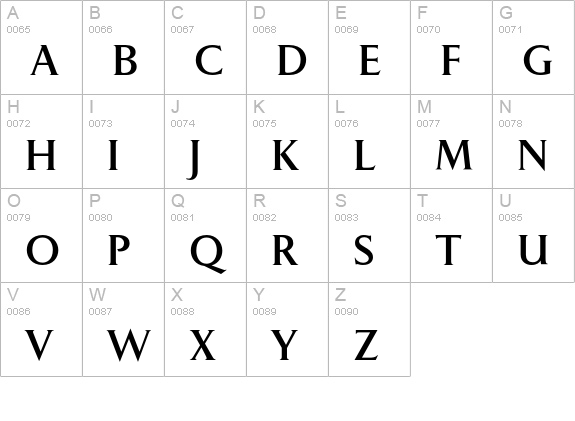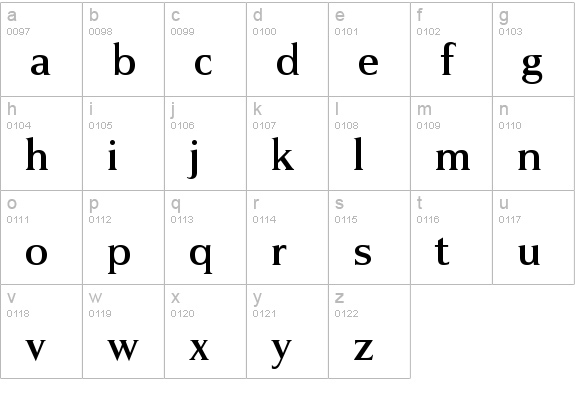
Pompei Std font is a classic and elegant typeface that exudes sophistication and timelessness. With its graceful curves and refined letterforms, Pompei Std is the perfect choice for adding a touch of sophistication to any design project. This versatile font is ideal for a wide range of applications, from branding and packaging to editorial design and signage. The best part? Pompei Std font is available for free download at FontsMarket.com! Simply head over to FontsMarket.com to access this exquisite typeface and take your designs to the next level. Don't miss out on the opportunity to enhance your projects with the beauty and elegance of Pompei Std font, now available for free at FontsMarket.com.